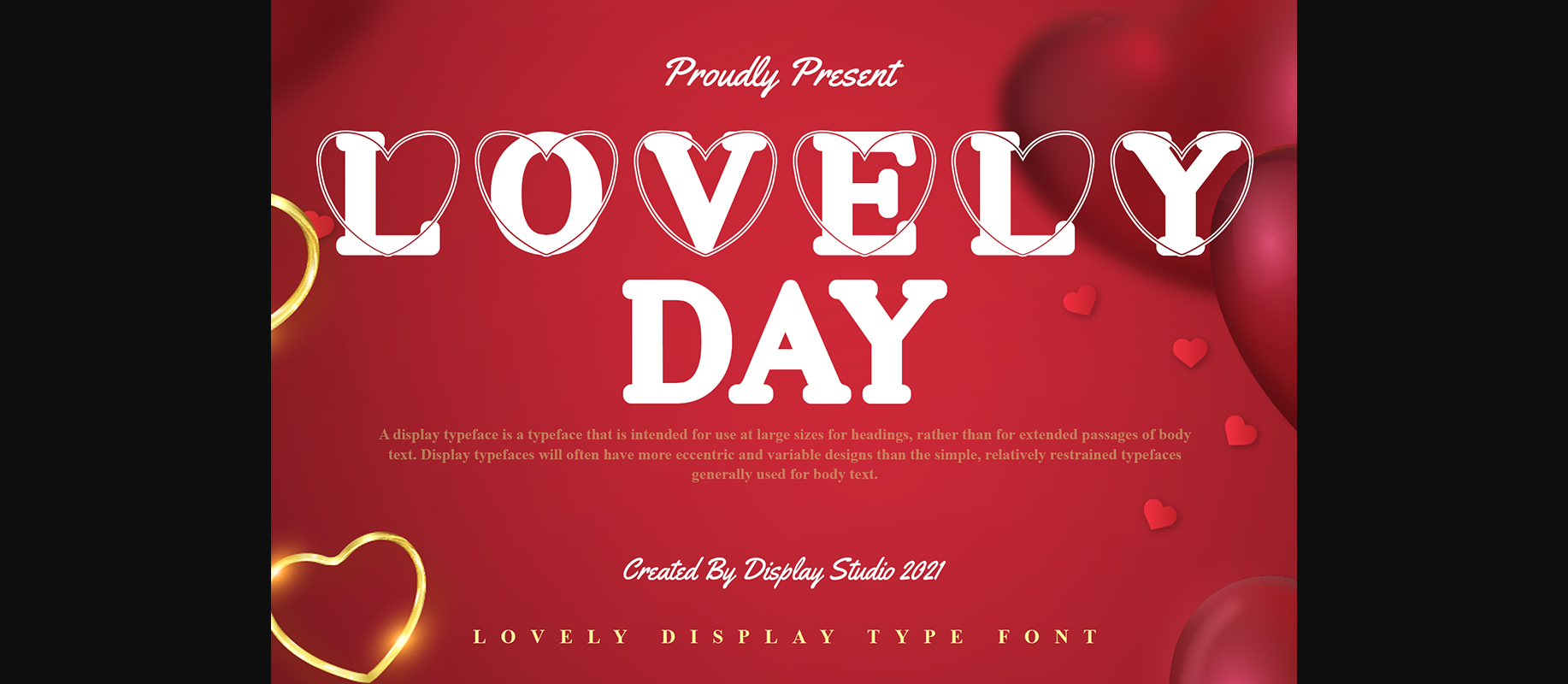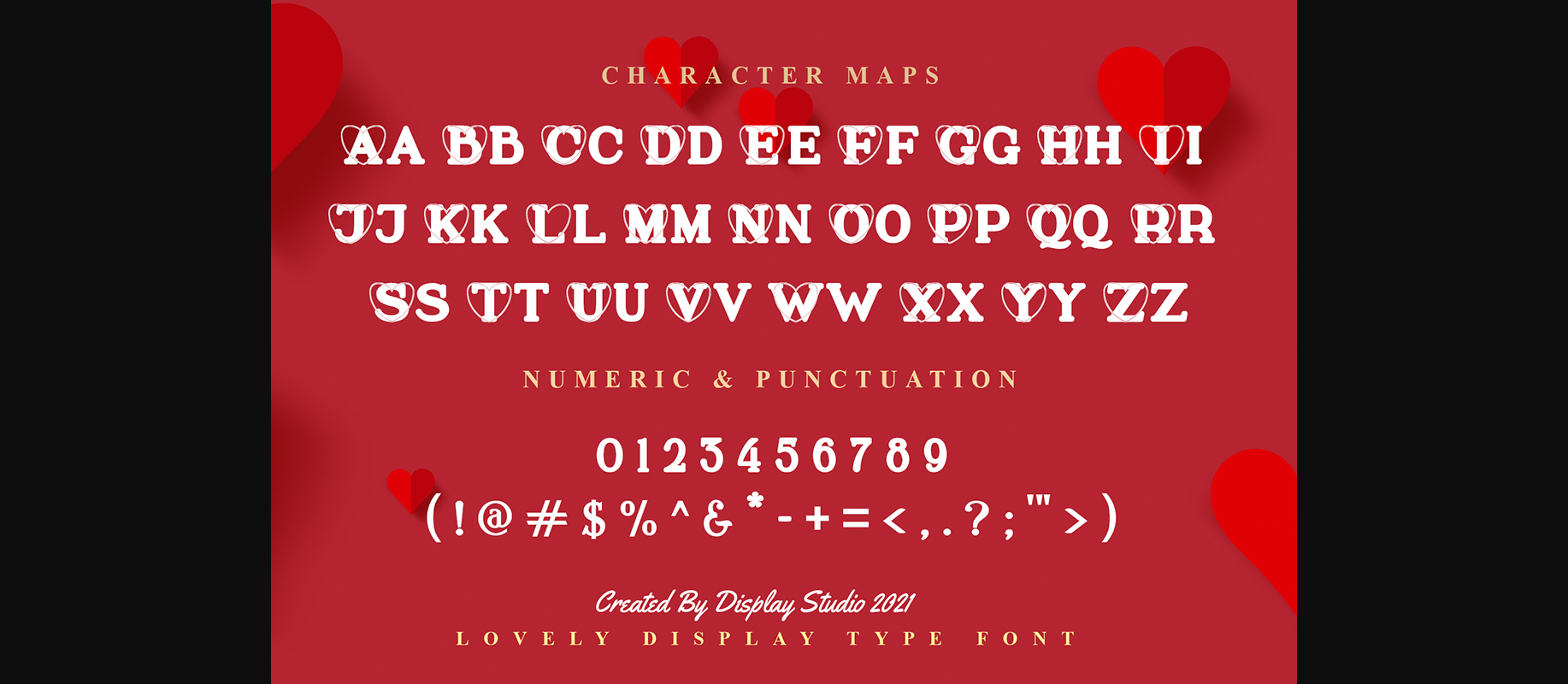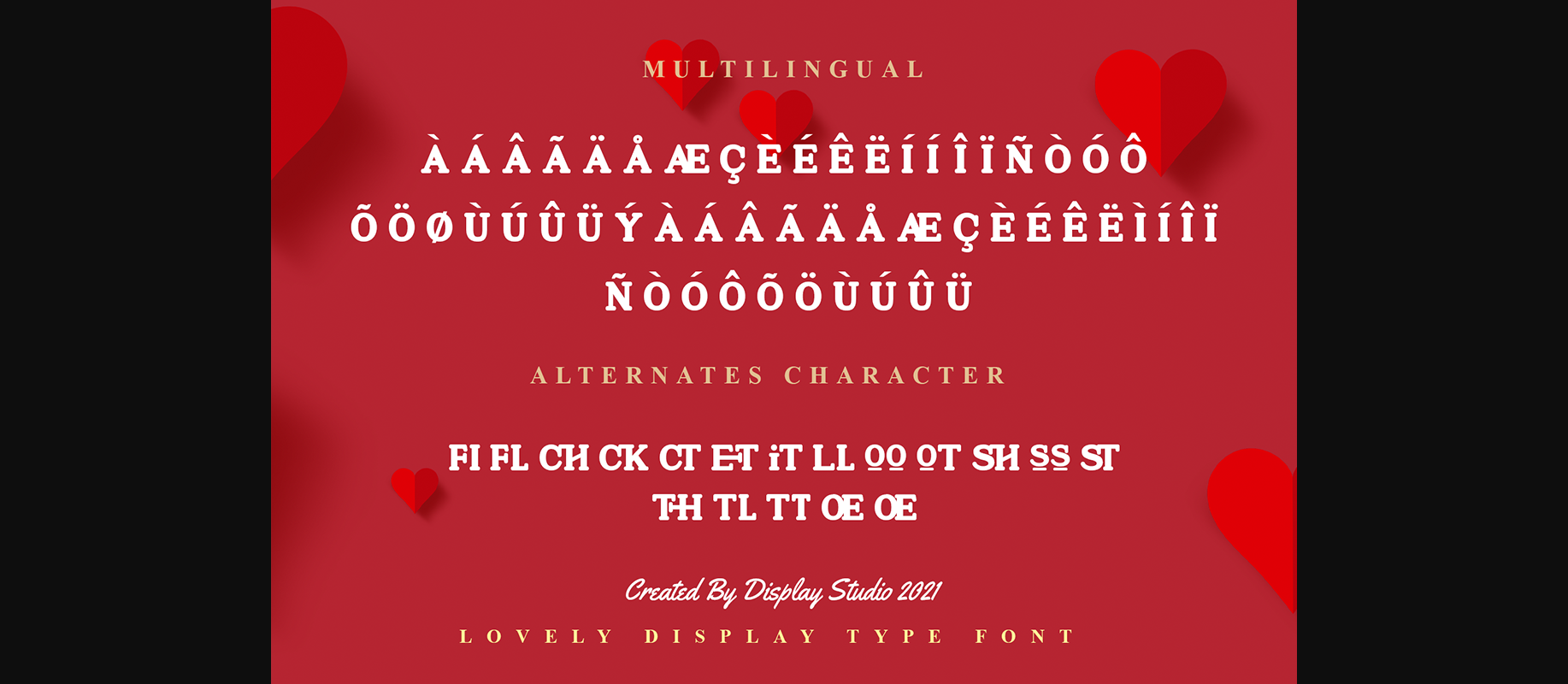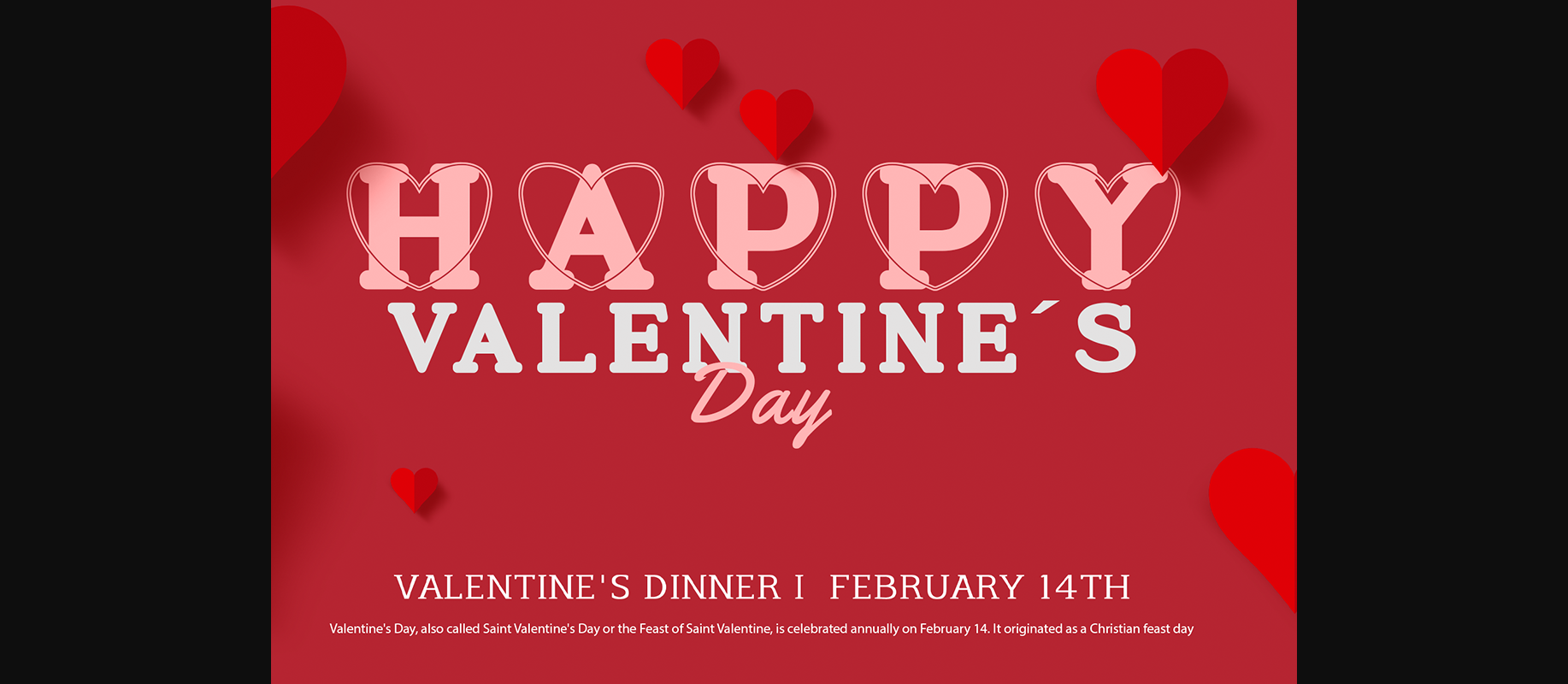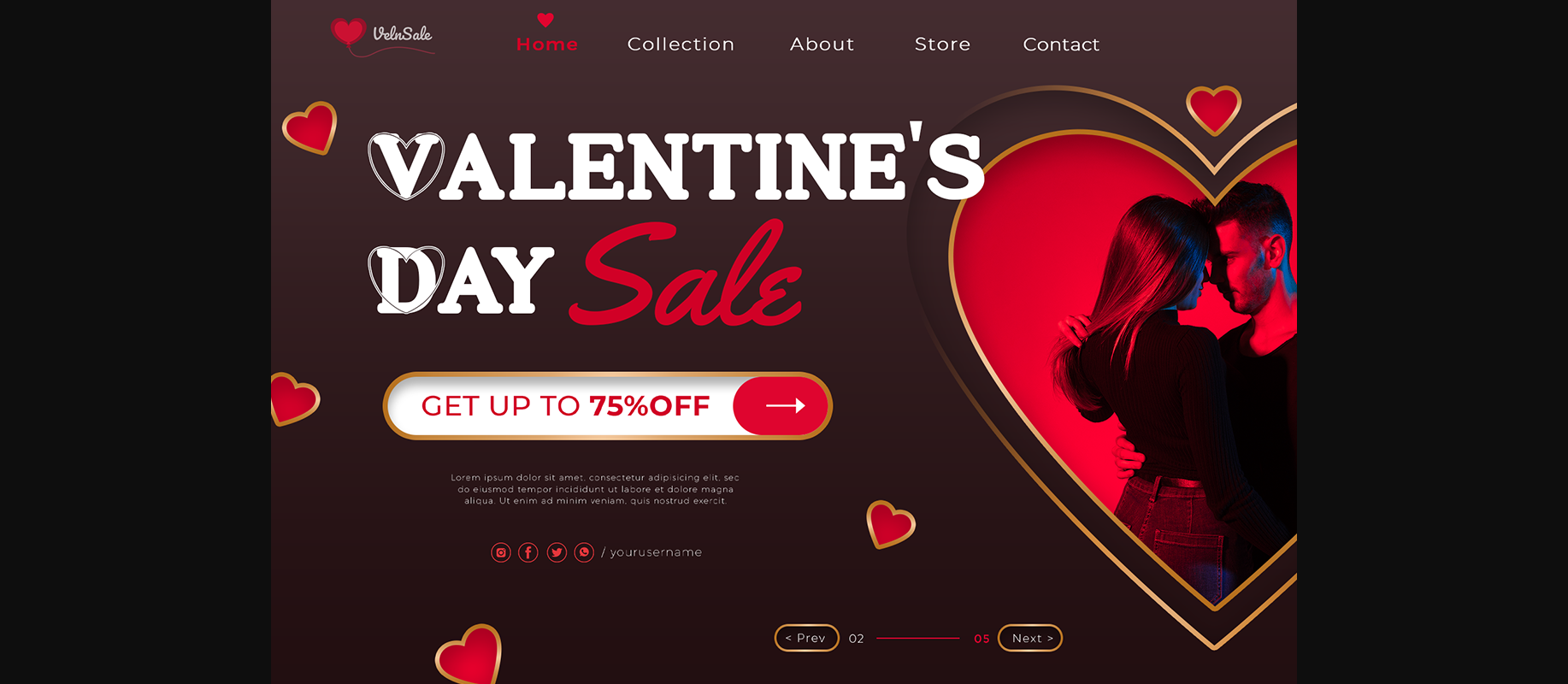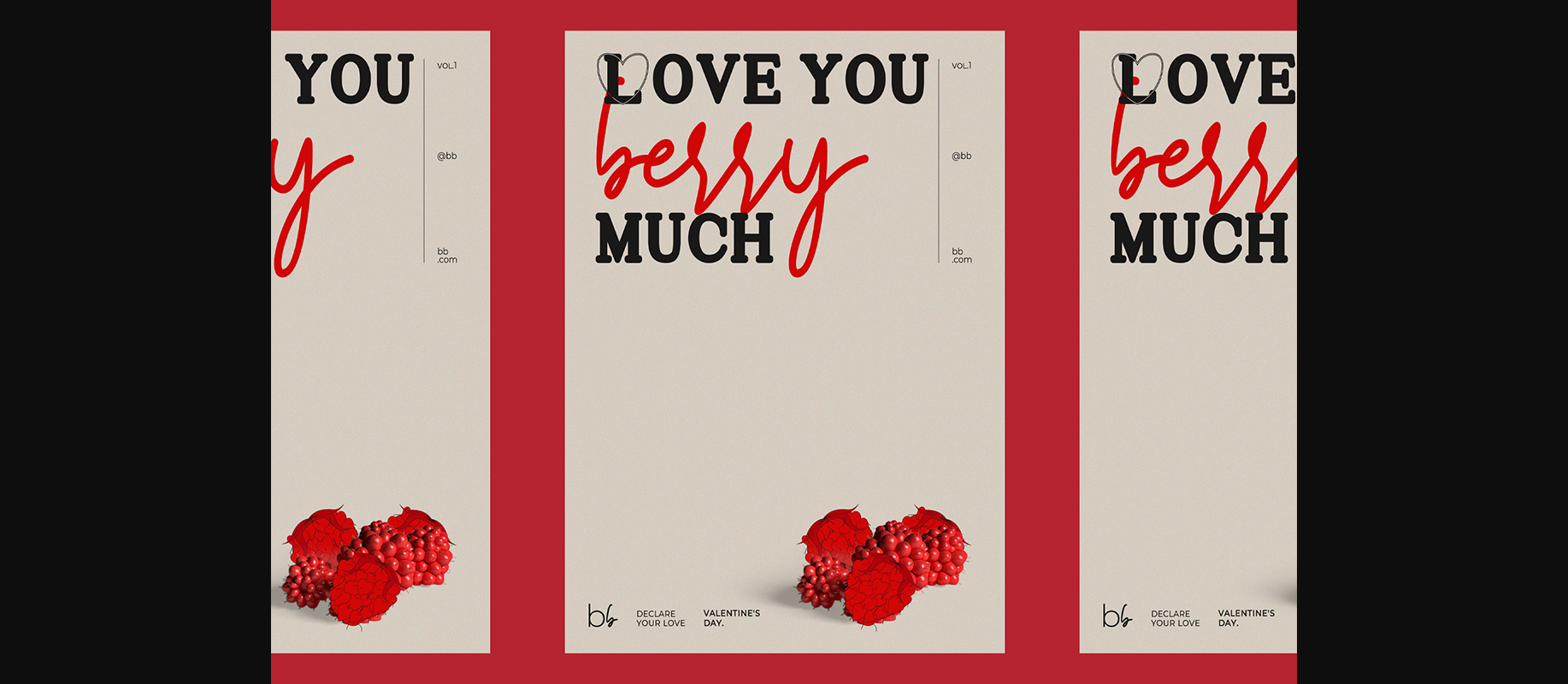
Lovely Day is a romantic and bold decorative font. This typeset is perfect for brand logos, invitations, greeting cards, or even any kind of project. With multilingual features and style variations, this typeface would further enhance the aesthetical aspect of your work.